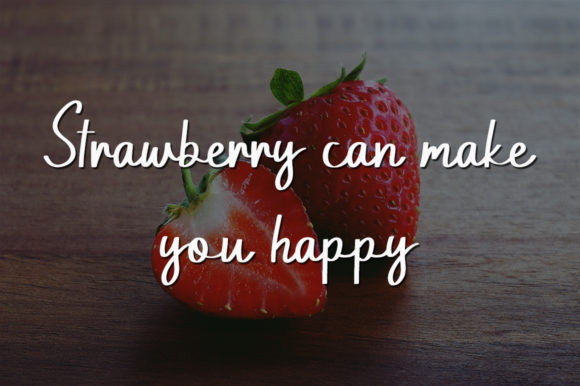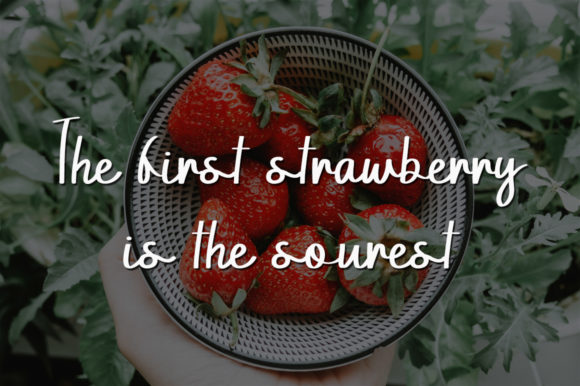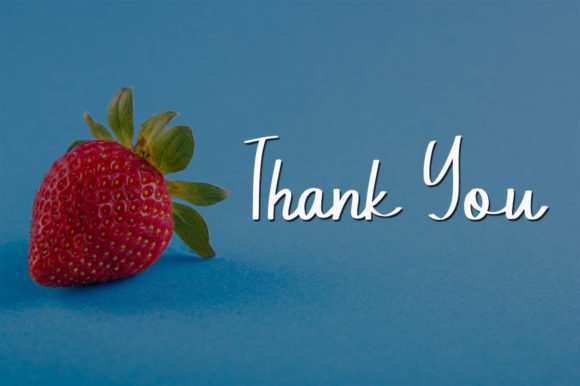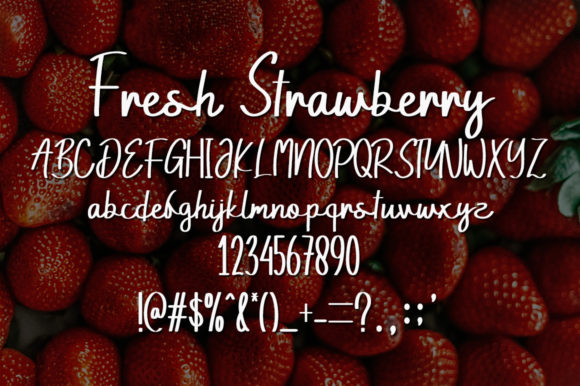
Introduction to Fresh Strawberry Font
Fresh Strawberry is a delicate and elegant handwritten font.
Its distinct and well rounded letters make this font a masterpiece Fall in love with its incredibly versatile style and use it to create spectacular designs.